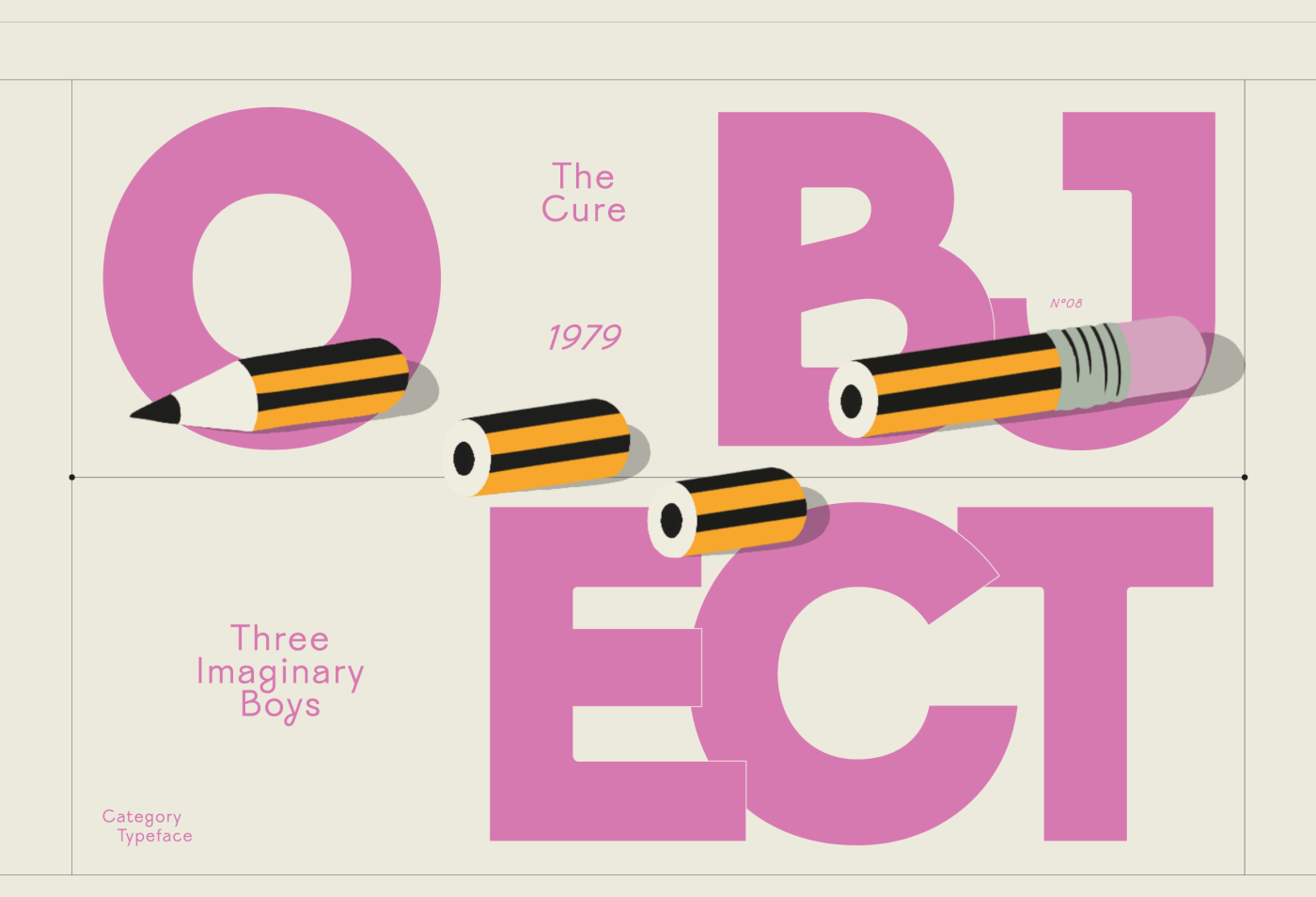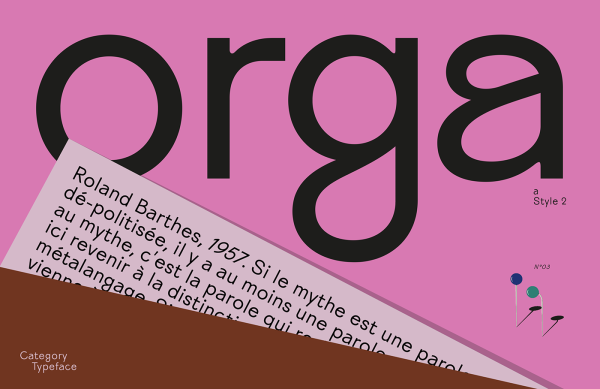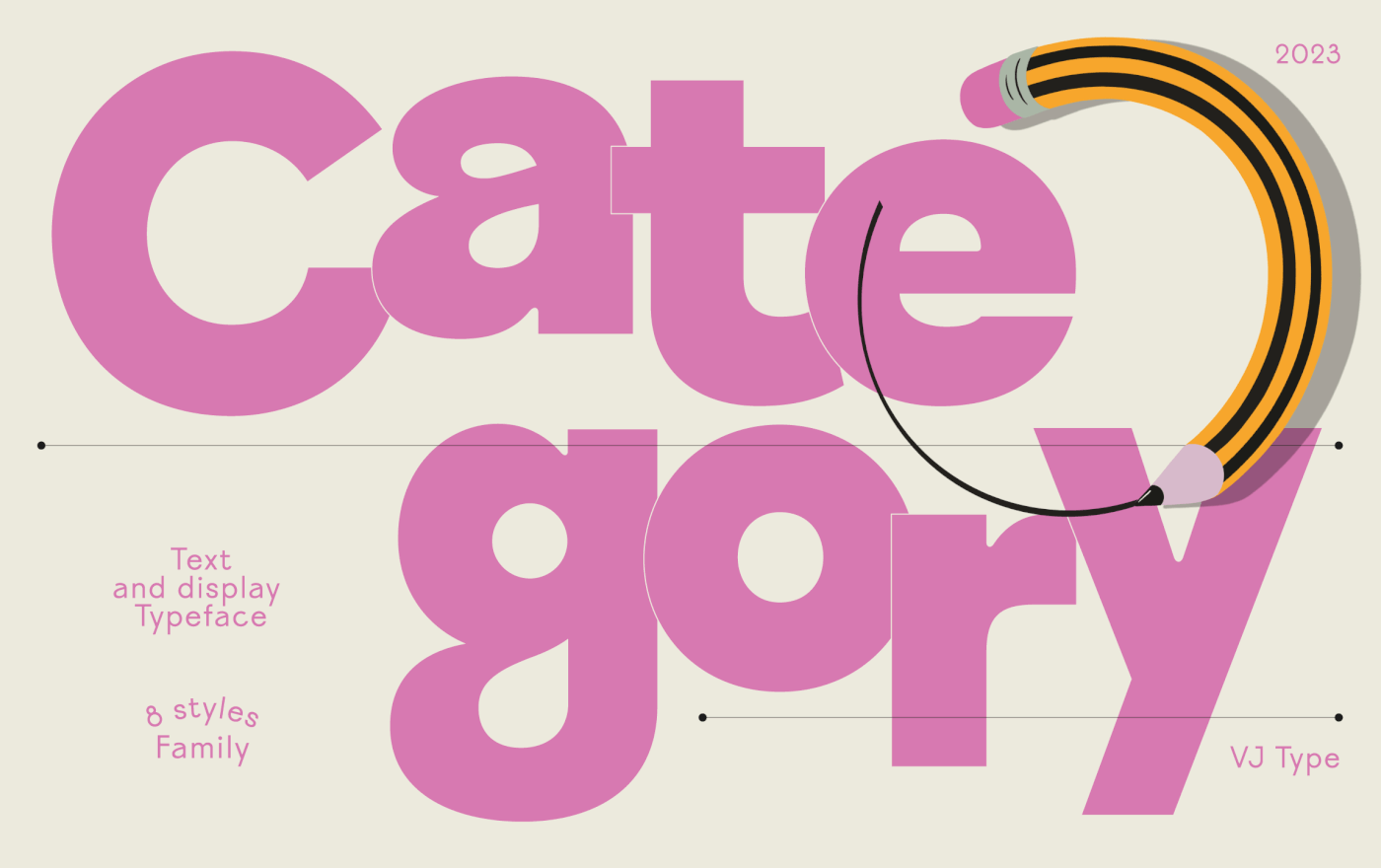
Category Font
Category Font, It’s a sans serif font with utilitarian and stylistic functions. It was designed with this specific balance so it can be used for any kind of content : long texts, body-copy, titles, logotypes. We like to think of Category as a universal and friendly font with a slight touch of eccentricity. It brings something sensitive to the geometric grotesk genre. The design originated from geometrical shapes with low-contrast and it features some graphic singularities that make it pure and elegant but yet reasonably curvy and funny. Lower-cases a g j and y are the best demonstration of that balance. The CBRP bring style to the uppercases set with its original angles. Could we have the audacity to say Category is square yet round ?